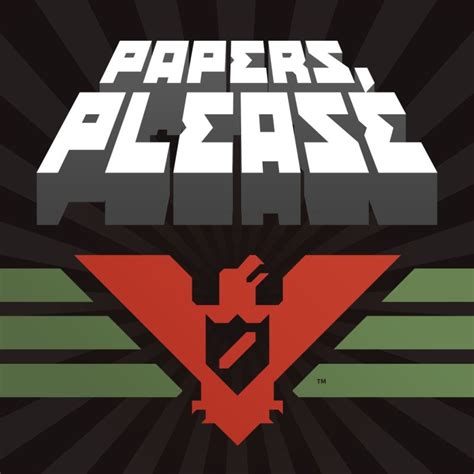
Discover The Iconic Papers Please Font: Full Guide
Hey guys, have you ever played a game where every single detail just clicks ? Where the atmosphere is so perfectly crafted that even the smallest elements, like the font, become integral to the experience? That’s exactly how many of us feel about Papers, Please , the critically acclaimed indie game that puts you in the shoes of an immigration inspector in the dystopian nation of Arstotzka. Beyond its gripping narrative and unique gameplay, one of the unsung heroes of its immersive world is undeniably the Papers Please font . This distinctive typeface contributes massively to the game’s unique aesthetic, setting a tone of official bureaucracy, stark reality, and a touch of retro charm that’s hard to forget. It’s not just about reading the text; it’s about feeling the weight of every document, every rule, and every decision you make. This article isn’t just about identifying what font Papers Please uses , but also about understanding its impact, exploring similar options, and even guiding you on how to incorporate that unique bureaucratic vibe into your own projects. So, whether you’re a fellow game developer, a graphic designer, or just a huge fan of Arstotzka’s particular brand of paperwork, stick around as we delve deep into the world of the Papers Please font and uncover all its secrets. We’ll explore why this particular font choice was so brilliant, how it enhances the gameplay, and provide you with actionable advice on finding and using typefaces that capture that unmistakable Papers Please aesthetic . Prepare to have your typographic passport stamped, because we’re about to cross the border into serious font appreciation, folks. Glory to Arstotzka, and glory to great typography!
What is the Papers Please Font? Unveiling the Typeface
When we talk about the Papers Please font , it’s crucial to understand that game developers often use a mix of custom solutions or heavily modified existing fonts to achieve their unique visual identity. The Papers Please font is a prime example of a choice that isn’t just functional, but deeply atmospheric. Upon closer inspection, many in the community and among typographic experts suggest that the primary font used for the in-game documents, dialogue, and UI elements in Papers, Please bears a striking resemblance to, or is directly based on, monospace typefaces . These fonts, where every character occupies the exact same horizontal space, are traditionally associated with typewriters, coding, and command-line interfaces, instantly lending an air of officialdom and a slightly retro, utilitarian feel. Think about the old green-screen monitors or dot-matrix printers – that’s the vibe. While creator Lucas Pope hasn’t publicly stated the exact font name, the Papers Please font strongly evokes the characteristics of Lucida Console or similar system fonts. Lucida Console is known for its clear, legible, and somewhat sterile appearance, which perfectly aligns with the game’s bureaucratic setting. It’s not flashy, it’s not decorative; it’s purely functional, which makes it incredibly effective in a game where you’re constantly scrutinizing text for discrepancies. The developers understood that the game’s typeface needed to be instantly readable under pressure, yet also subtly contribute to the oppressive atmosphere. The choice of a monospace font means that all those columns of numbers and names in passports and entry permits align perfectly, making it easier for players to spot inconsistencies, which is the core mechanic of the game. It’s a brilliant example of how form follows function in game design, where the visual style directly enhances gameplay. The slightly cold, impersonal nature of the Papers Please font reflects the detached and often grim reality of the Arstotzkan border, emphasizing the rigid systems and the human stories caught within them. This isn’t just a font; it’s a silent narrator, constantly reminding you of the game’s overarching themes of control, surveillance, and the dehumanizing nature of bureaucracy. The careful selection of this distinctive font ensures that every piece of paper, every official stamp, and every instruction feels authentically government-issued, pulling you deeper into the game’s meticulously crafted world. It’s a testament to the power of subtle design choices that resonate profoundly with the player experience, making the Papers Please font truly iconic in the indie gaming landscape.
The Aesthetic Impact of the Papers Please Font on Gameplay
The aesthetic impact of the Papers Please font on gameplay is far more profound than many players might initially realize. It’s not just a visual detail; it’s a critical component that shapes the entire player experience, reinforcing the game’s core themes and mechanics. First and foremost, the Papers Please font immediately establishes an air of authenticity and officialdom. When you see that clean, somewhat sterile, and highly legible monospace text on all the documents—passports, entry permits, identity cards—your brain instantly registers